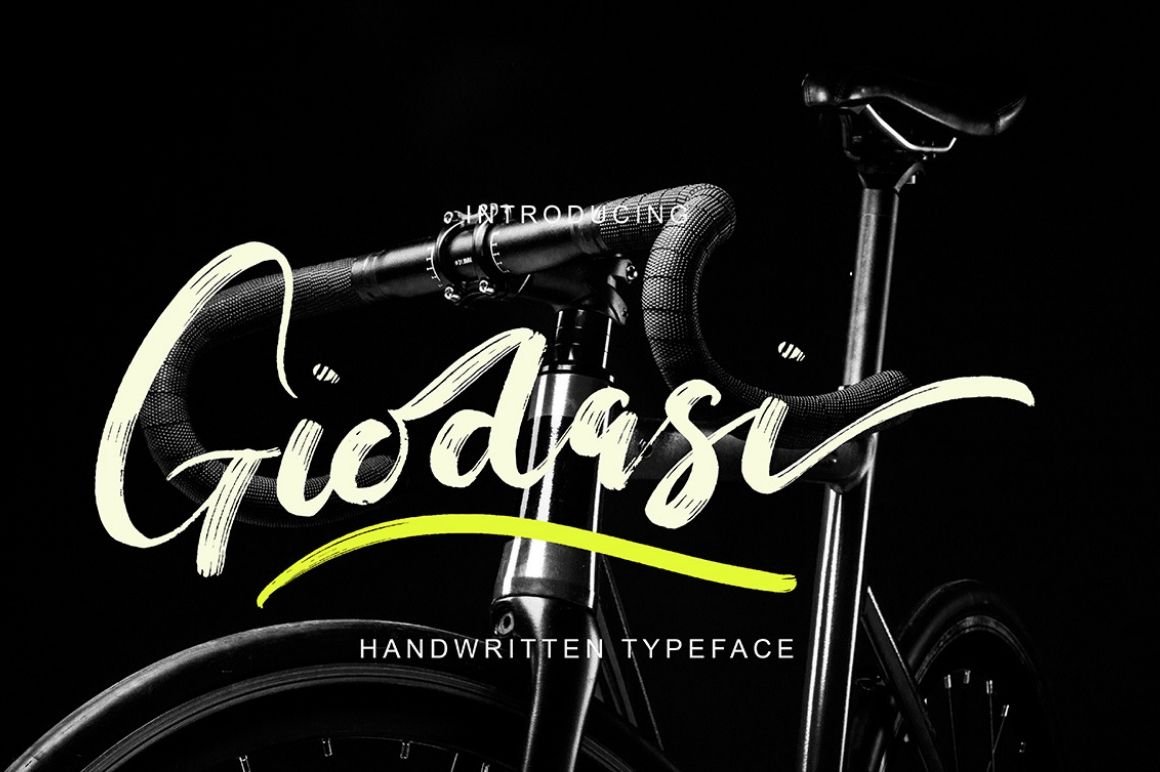
Giodasi Free Font
Giodasi is a modern brush script font with modern style. This font is perfect for many different projects like quotes, logo, blog header, poster, wedding, banding, fashion, apparel, letter, invitation, stationery, etc
Preview Of Giodasi Free Font: